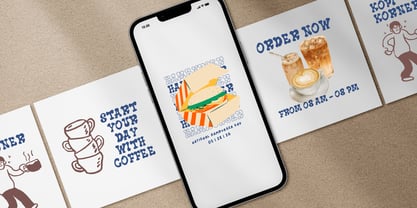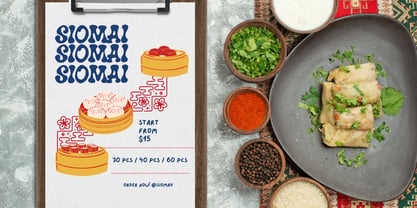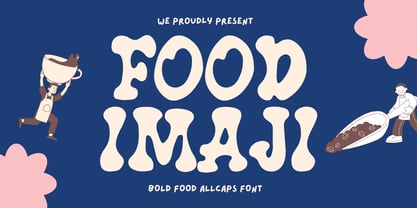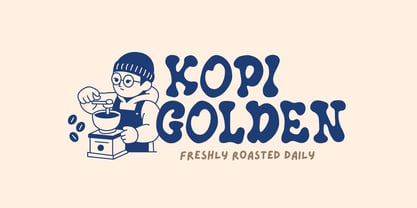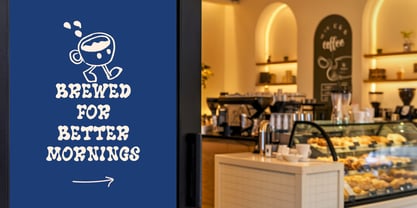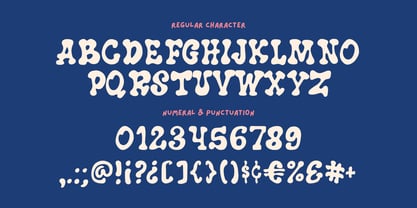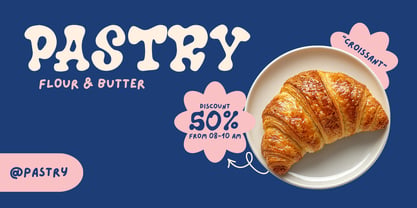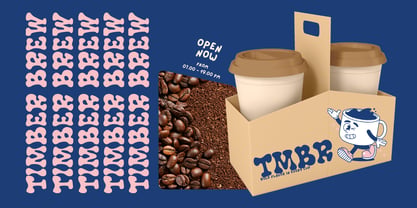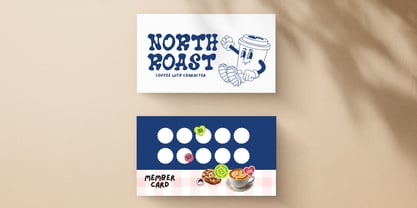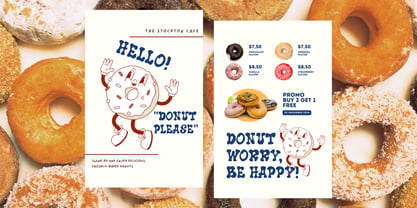
Food Imaji
Die Schriftfamilie Food Imaji wurde von Bayu Suwirya entworfen und von Illushvara veröffentlicht. Food Imaji enthält 1 Stile. Mehr über diese Familie
Food Imaji Font is a bold handmade display font crafted to make your branding stand out with confidence and character. Featuring strong letterforms and an authentic handcrafted feel, this font is perfect for logos, food branding, coffee shops, cafes, restaurants, bakeries, packaging, labels, menus, posters, social media graphics, and promotional materials. Imaji brings a warm and energetic personality to every design, making it ideal for businesses that want a memorable, eye-catching, and professional visual identity.